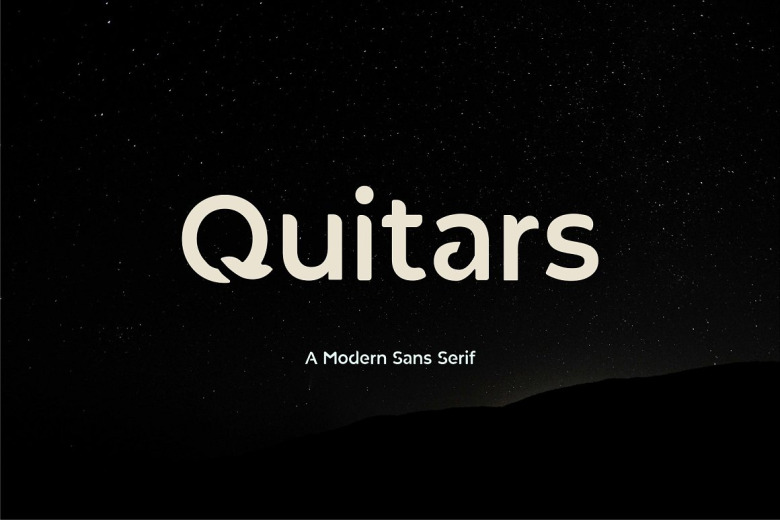
Quitars Font
Quitarsis a bold, sans serif type font with solid lines and soft rounding. in spite of seeing like an up-to-date typeface, it is relaxed for any work you put on the mouth. This font provides a fantastic way to bring a personalized feel to whatever you create digitally.
No matter whether you are creating graphics for your business or writing the first novel of your series, or even if all you need is that one little bit that makes your resume look more than professional, this font will serve. “Simple to use with numerous format.” Original font with a unique and contemporary appearance on your project.
Quitars Sans Serif Font